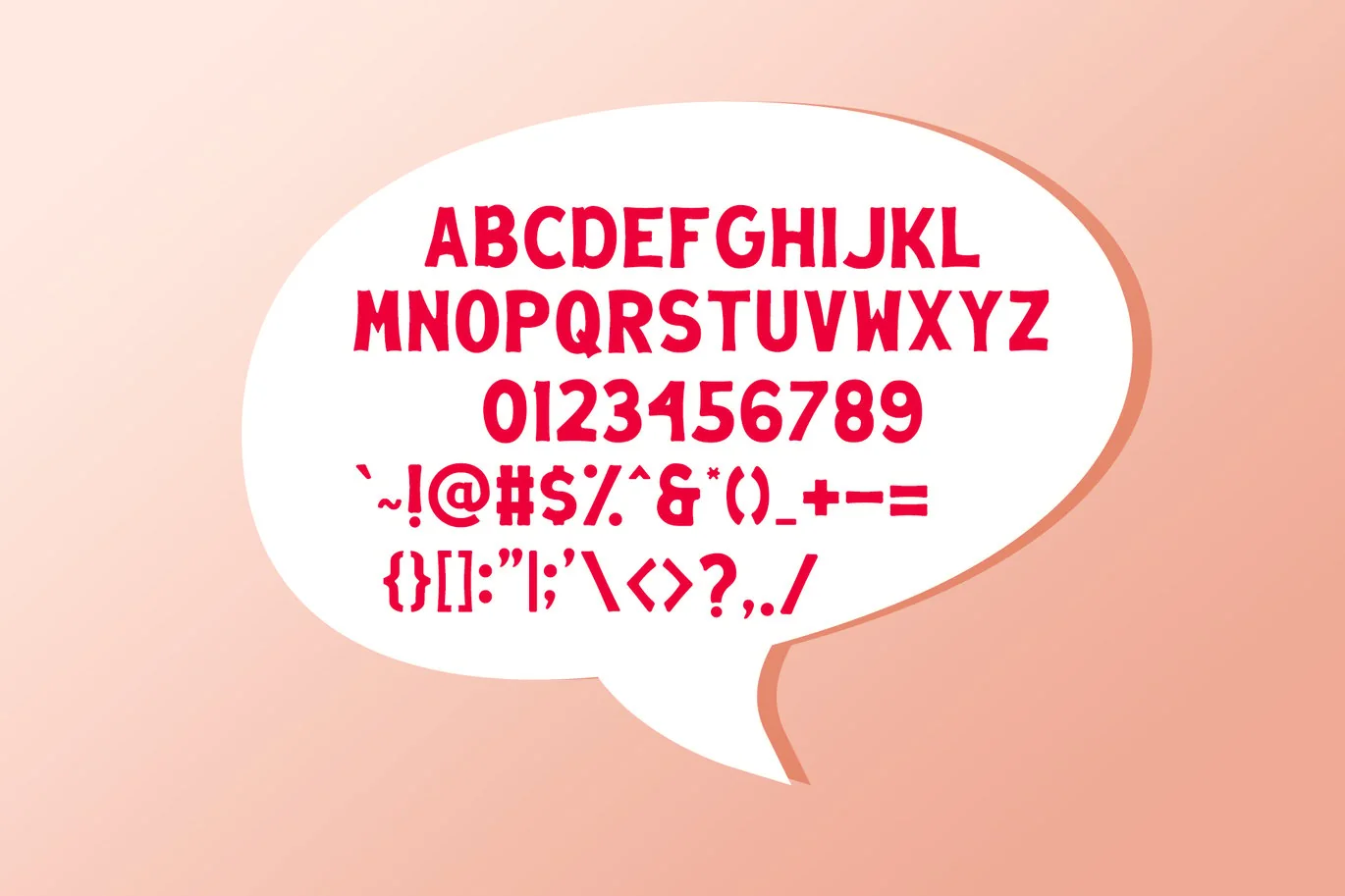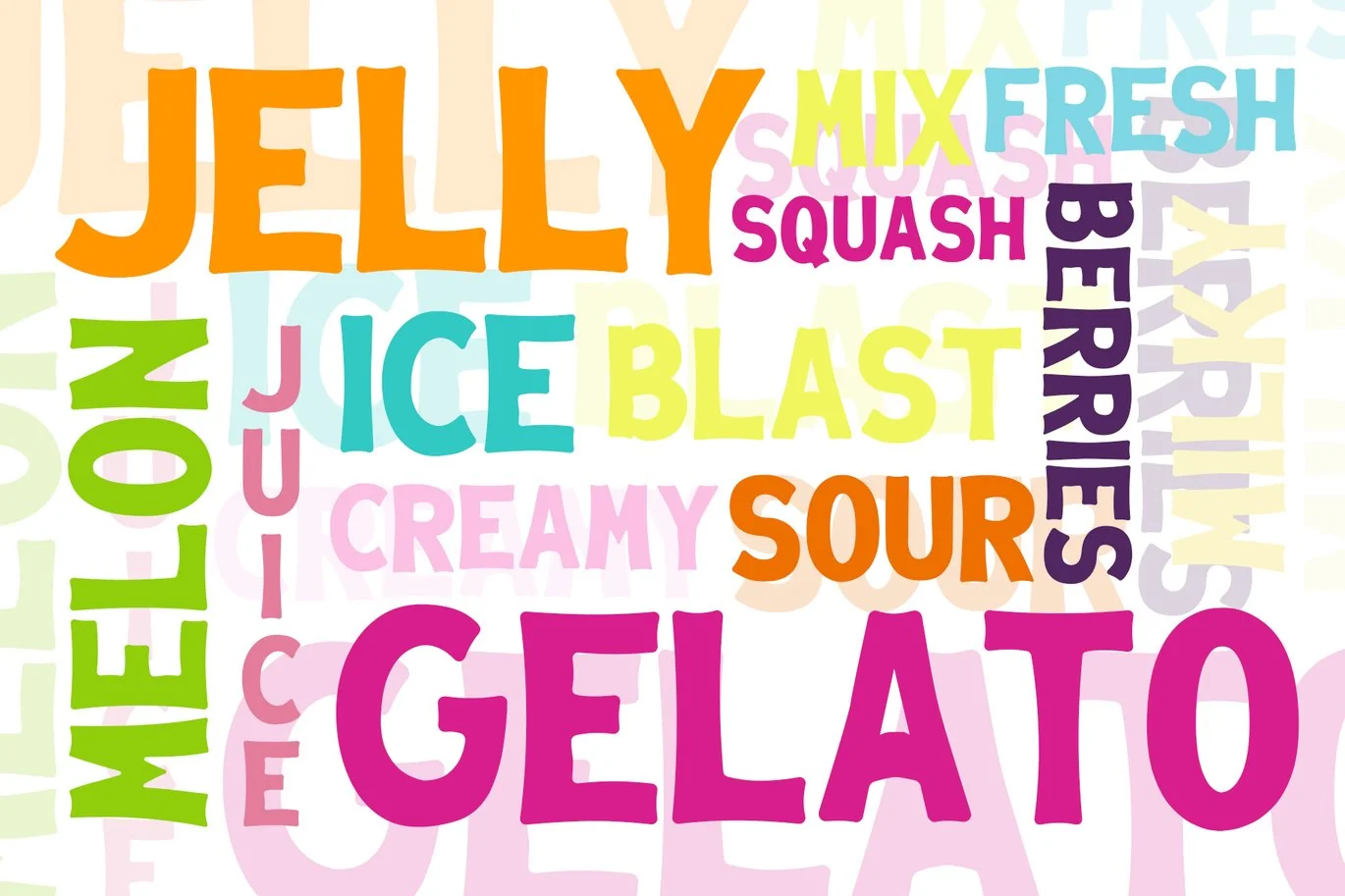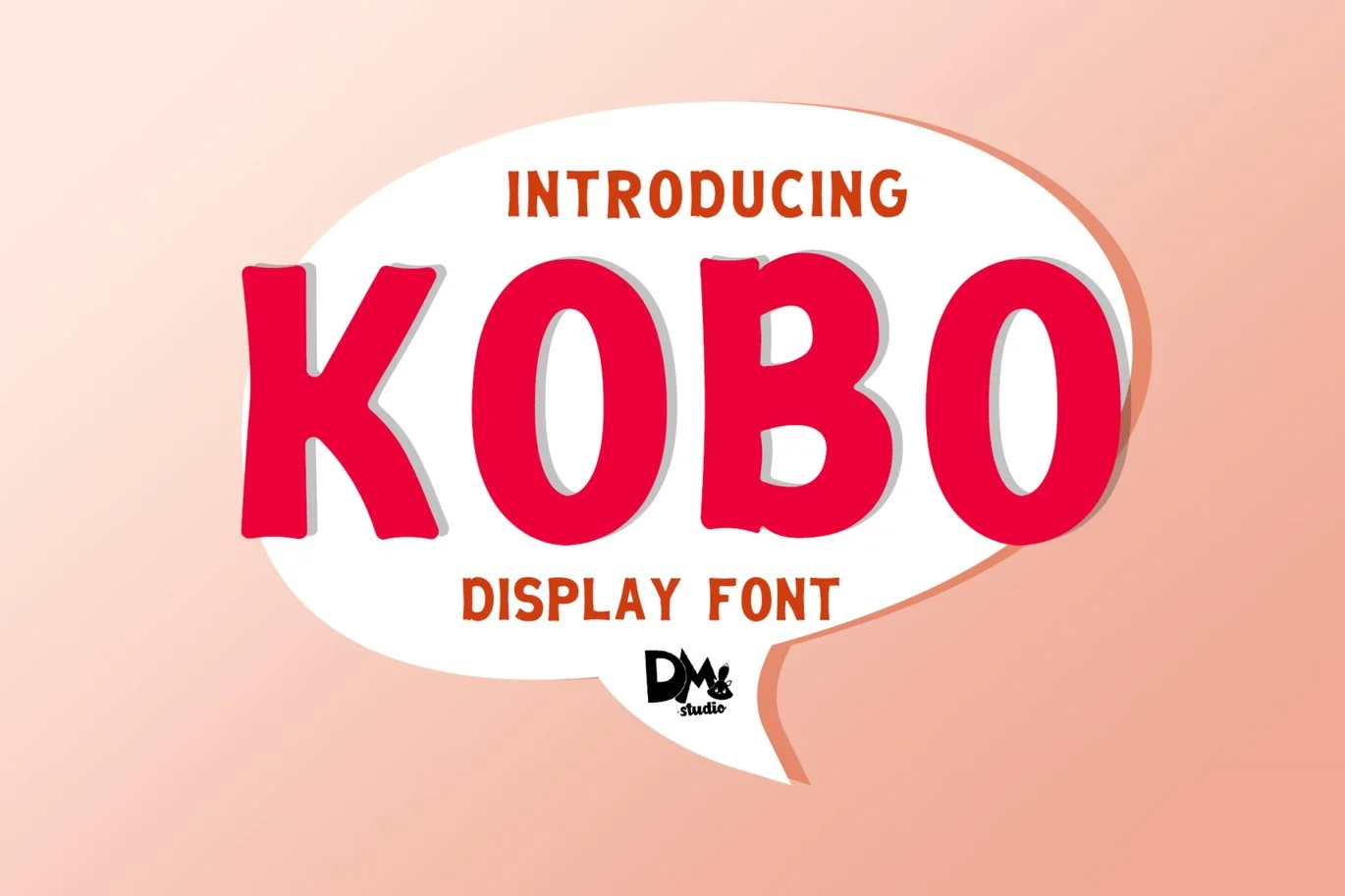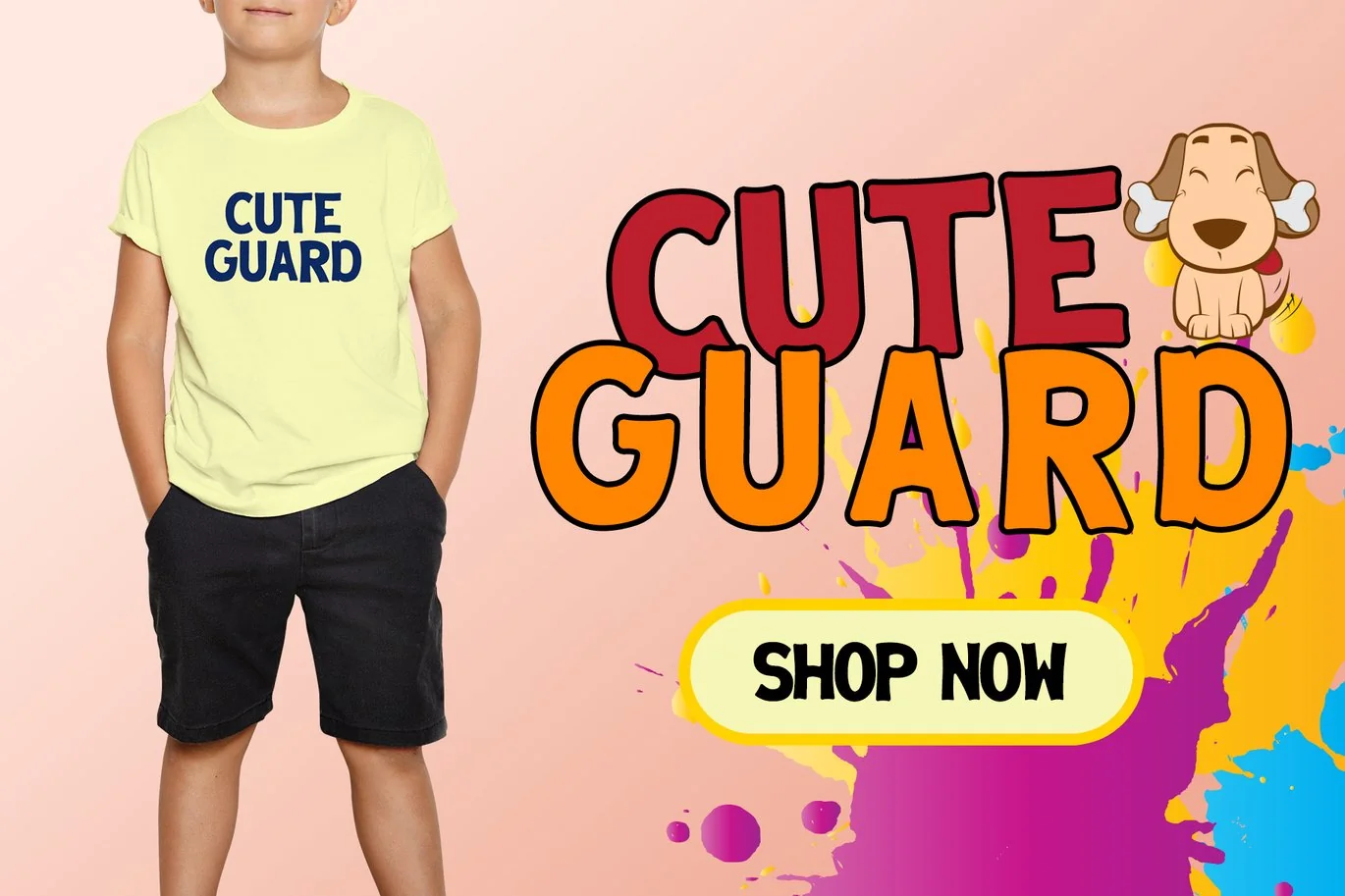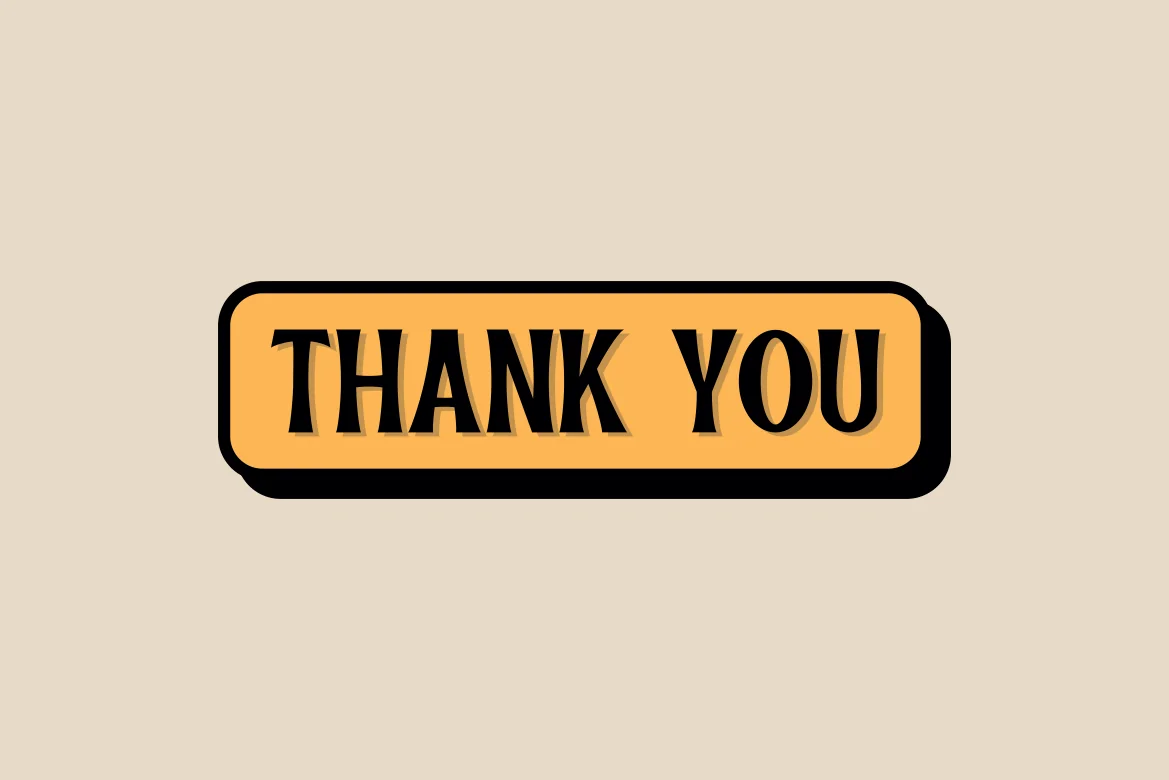
KOBO – DISPLAY FONT
Introducing KOBO,The
playful display sans!
Great choice for every seasonal project, applications, printing,
merchandise, advertising, packaging, digital project and much more!
HIGHLIGHTS:
-ALL IN CAPS character set
-Numerals
-Symbols